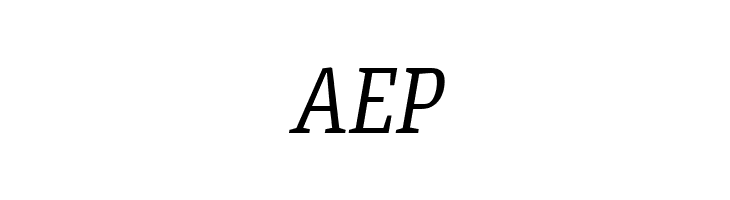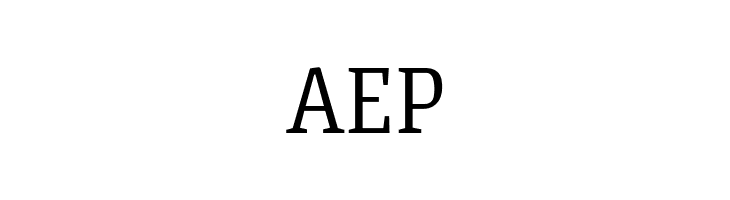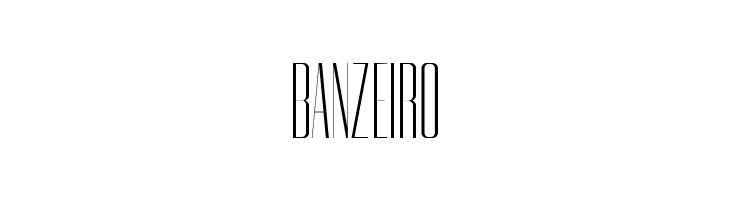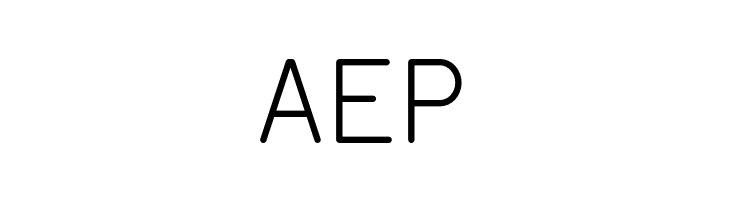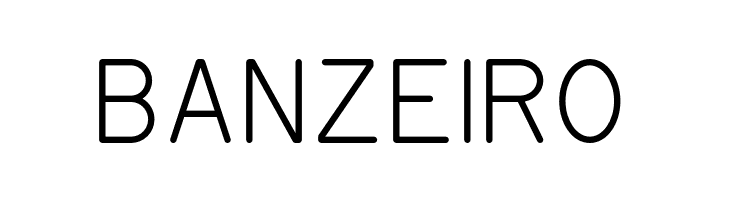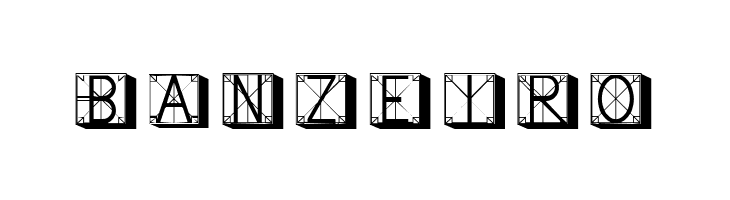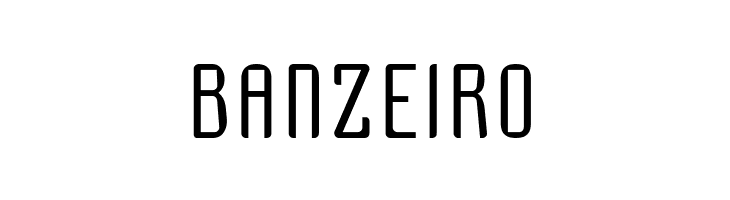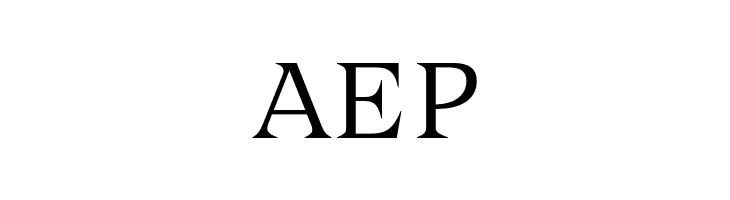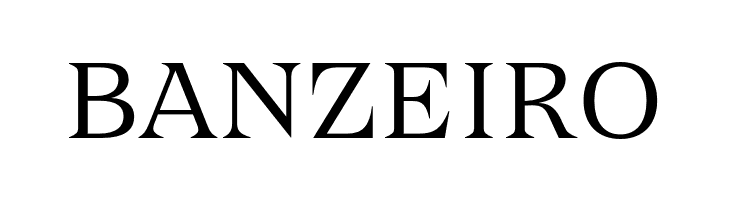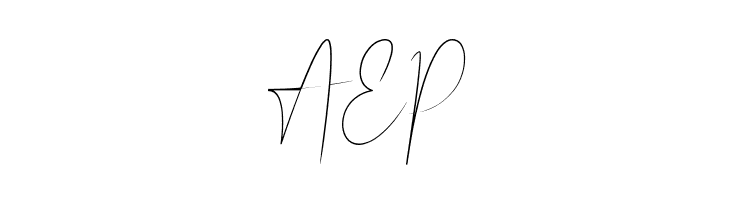
• Goresant Script Light
A graceful and elegant script font with flowing, connected strokes.
• Gorgeous Light
A sleek, elongated typeface with thin, consistent strokes and a modern aesthetic.
• GorillaComix-Light
A playful, comic-inspired font with a hand-drawn, whimsical style.
• Gorton Digital Light
( A revival of a 20th century interwar typeface. In the early- to mid-20th century, the George Gorton Machine Company made engraving machines (among other machines). )
A clean, modern sans-serif font with a light weight and balanced spacing.
• Gota-Light
A modern, geometric font with thin, continuous lines and a sleek design.
• Gotcha Gothic Light
A modern, geometric sans-serif font with a sleek and narrow design.
• Gothic A1 Light
A modern, light sans-serif font with excellent readability and versatility.
• Gothica Light Regular
A decorative font with geometric patterns and bold, artistic flair.
• Goudy Thirty Light
A classic serif font with elegant, flowing lines and a calligraphic influence.
• GoudyItalienSOpti-Light
A classic serif font with elegant curves and balanced contrast.
• Gracie Light
A playful, casual handwritten font with smooth, flowing lines.
• Grage Light
A modern, geometric sans-serif font with rounded edges and a condensed style.
• Grand Cru Light S
A classic serif font with elegant strokes and refined proportions.
• Grandi PERSONAL USE Light
A modern, clean sans-serif font with uniform stroke width.
• Grandi PERSONAL USE Light Italic
A sleek, modern, light italic sans-serif font with elegant slanting.
• GranthamLight
A classic serif font with elegant, flowing lines and medium contrast.
• GranthamLightCondensed
A classic, light serif font with a condensed width and medium contrast.
• GRAPHIC DESIGN-Light
A bold, geometric font with a futuristic and modern design.
• Gravity Light
A modern, geometric sans-serif font with clean lines and uniform stroke width.
• Gravity Light Italic